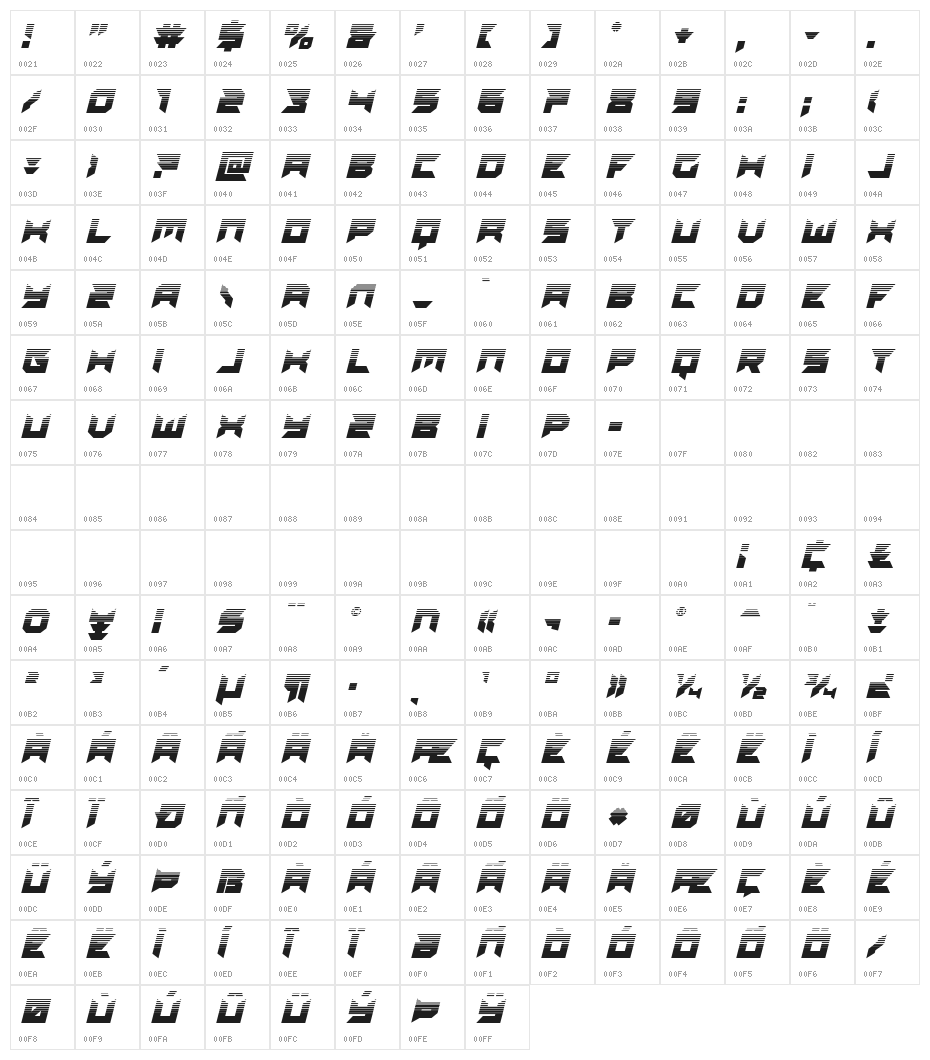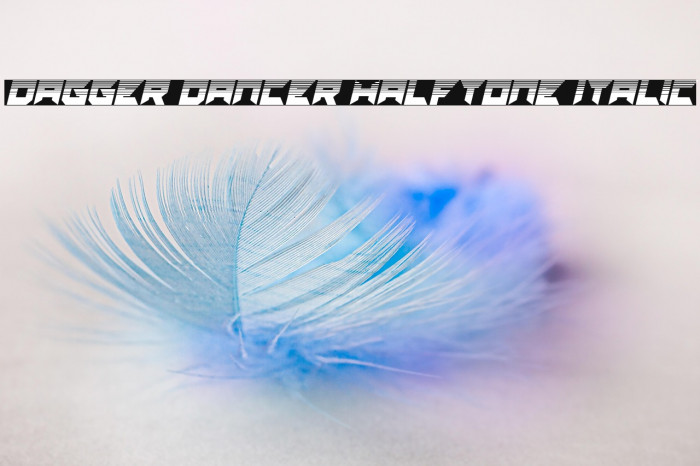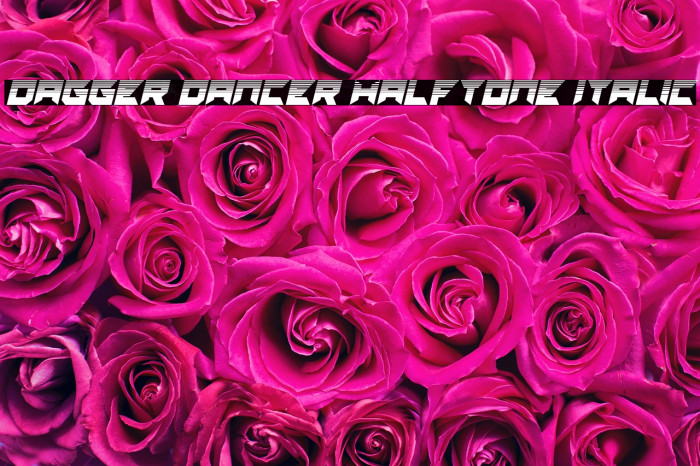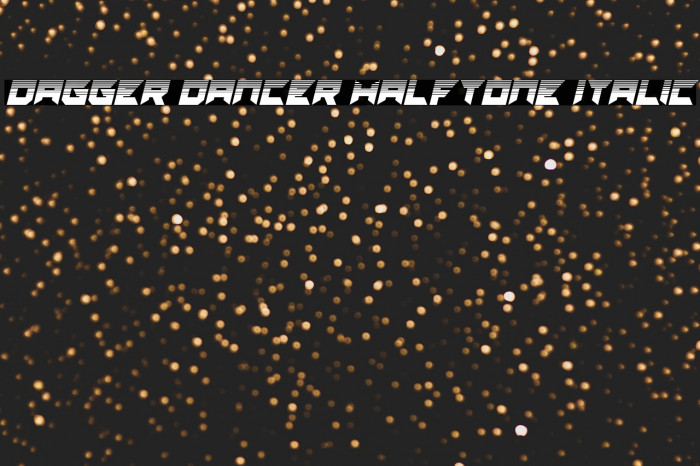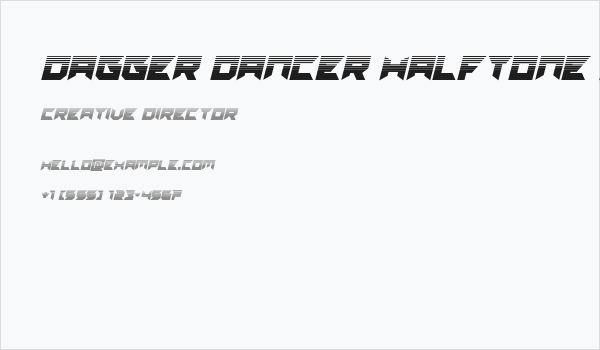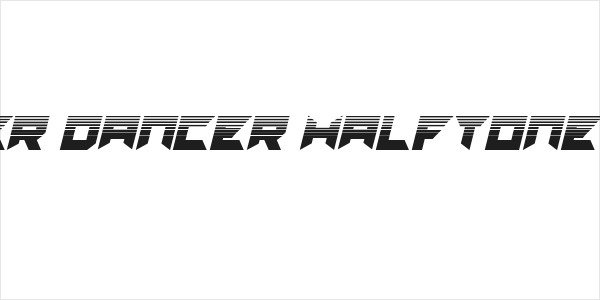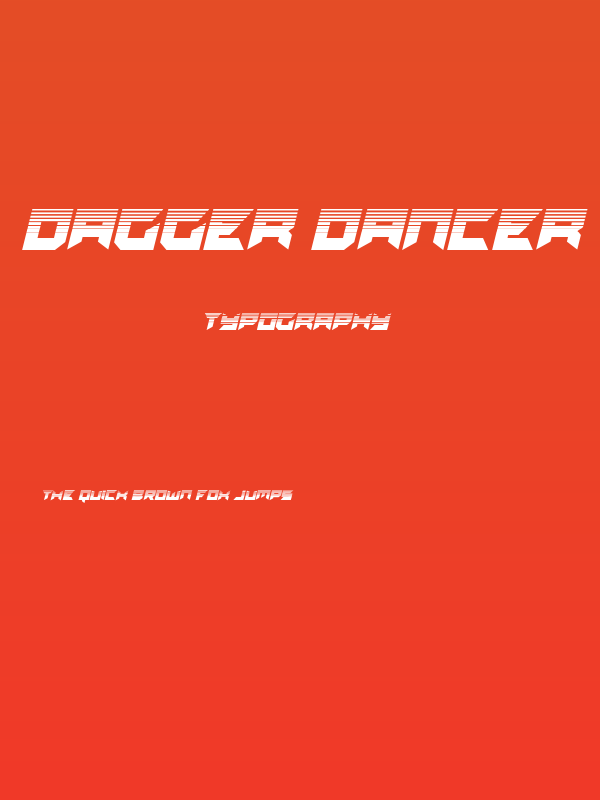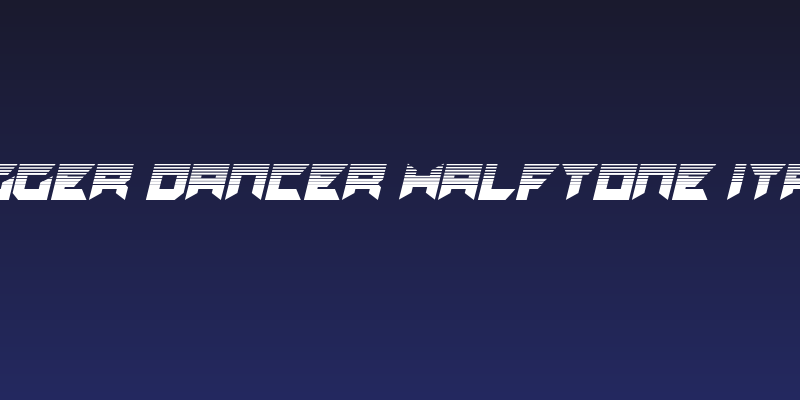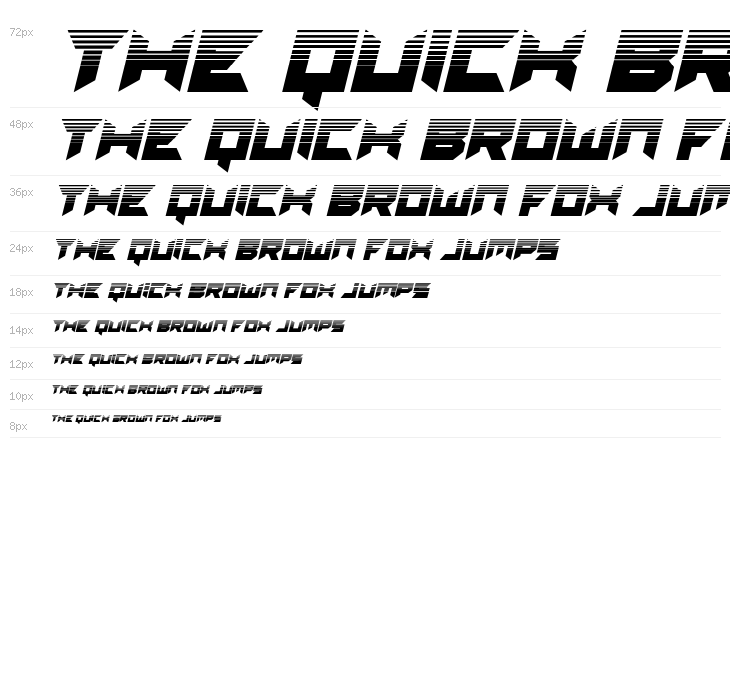
Dagger Dancer Halftone Italic Font
Dagger Dancer Halftone Italic Description
This font features a bold, futuristic design with a distinct halftone effect that gives it a dynamic and energetic appearance. The characters are italicized, adding a sense of motion and speed. The uppercase and lowercase letters maintain a consistent style, with sharp angles and a geometric structure. The numbers and special characters follow the same aesthetic, ensuring uniformity across all glyphs. The horizontal lines within each character create a layered, three-dimensional look, enhancing its modern appeal. This font is ideal for projects that require a strong visual impact, such as posters, album covers, or video game titles.
| Proposed Projects | Ideal for sci-fi themed designs, video game titles, dynamic posters, and modern branding. |